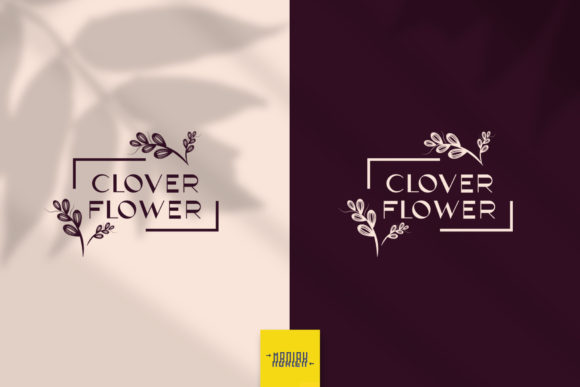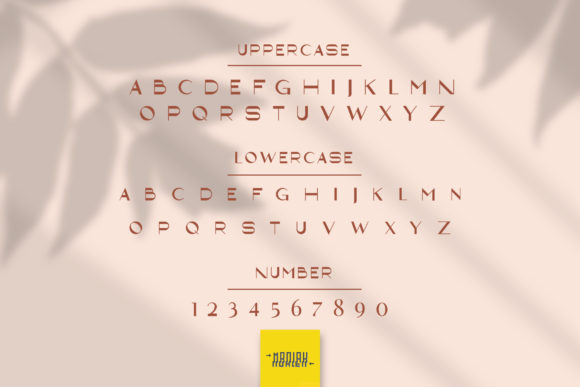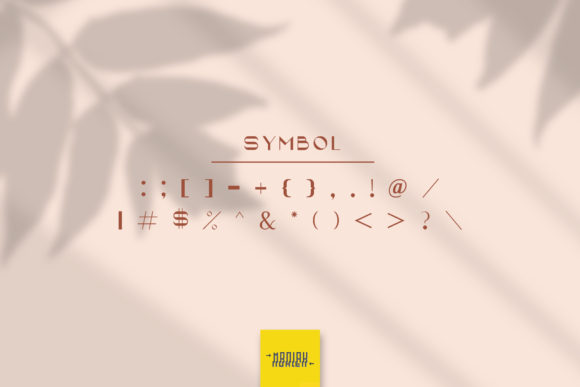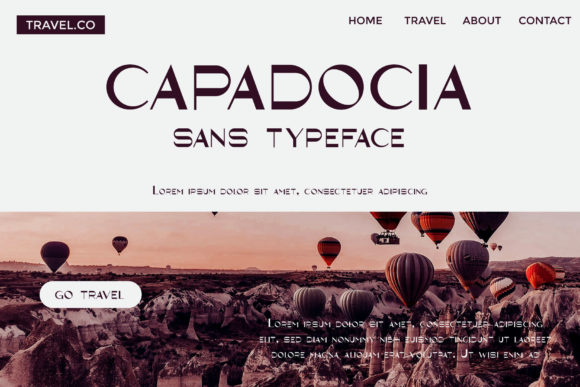
Introducing Capadocia Font: Elevate Your Crafting Ideas with Modern Elegance
Are you a designer, crafter, or DIY enthusiast looking for a font that can elevate your creative projects? Look no further than Capadocia Font, a modern, clean, and luxurious sans serif font that’s perfect for a wide range of crafting ideas. From cards and branding to labels and more, Capadocia Font is the perfect addition to your design toolkit.
What is Capadocia Font?
Capadocia Font is a sleek and sophisticated sans serif font that’s designed to add a touch of elegance to your creative projects. Its clean lines, modern aesthetic, and luxurious feel make it perfect for designers and crafters who want to create high-end looking designs without sacrificing readability.
Key Features of Capadocia Font
- Modern and Clean Design: Capadocia Font features a modern and clean design that’s perfect for creating sleek and sophisticated designs.
- Luxurious Feel: The font’s luxurious feel adds a touch of elegance to your designs, making it perfect for high-end branding and marketing materials.
- Versatile: Capadocia Font is versatile and can be used for a wide range of crafting ideas, from cards and invitations to branding, labels, and more.
Benefits of Using Capadocia Font
Using Capadocia Font in your design projects offers a range of benefits, including:
- Professional-Looking Designs: Capadocia Font helps you create professional-looking designs that are perfect for business or personal use.
- Increased Readability: The font’s clean design and easy-to-read style ensure that your message is communicated clearly and effectively.
- Versatility: Capadocia Font can be used for a wide range of design projects, making it a valuable addition to your design toolkit.
- Time-Saving: The font’s ease of use and versatility save you time and effort in designing and re-designing your projects.
Design Ideas Using Capadocia Font
Capadocia Font is perfect for a wide range of design projects, including:
- Cards and Invitations: Create beautiful and elegant cards and invitations for special occasions.
- Branding and Marketing Materials: Use Capadocia Font to create high-end looking branding and marketing materials, such as logos, brochures, and business cards.
- Labels and Packaging: Add a touch of elegance to your labels and packaging with Capadocia Font.
- Digital Designs: Use Capadocia Font in your digital designs, such as social media graphics, blog posts, and website headers.
Capadocia Font is a modern, clean, and luxurious sans serif font that’s perfect for designers and crafters who want to elevate their creative projects. Its versatility, readability, and ease of use make it a valuable addition to your design toolkit. Whether you’re creating cards, branding materials, labels, or digital designs, Capadocia Font is the perfect choice. So why wait? Download Capadocia Font today and start creating stunning designs that will leave a lasting impression!